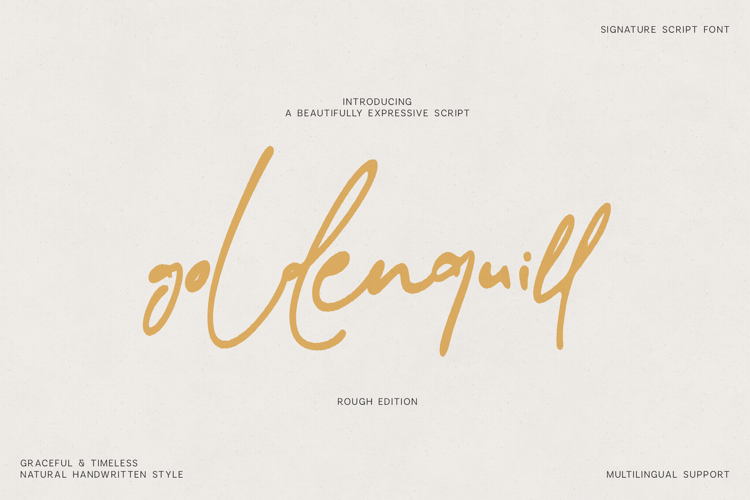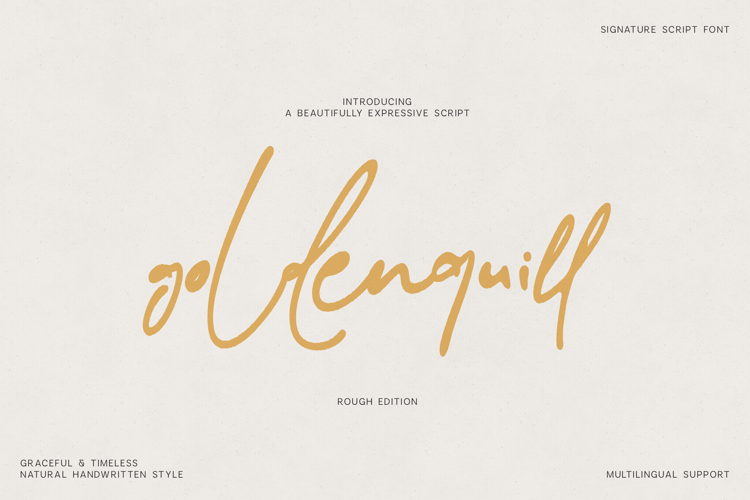
Meet Glenquil, a beautifully expressive signature script font created to bring elegance, personality, and authenticity to every design. With natural flowing strokes and a refined handwritten style, Glenquil is perfect for creating sophisticated branding and memorable typography.
Whether you're designing logos, packaging, invitations, social media graphics, editorials, product labels, photography branding, or luxury marketing materials, Glenquil adds a timeless handwritten touch while remaining highly legible.
The font comes in three carefully crafted styles:
Each style offers its own unique character, allowing you to create everything from clean modern branding to organic handcrafted designs.